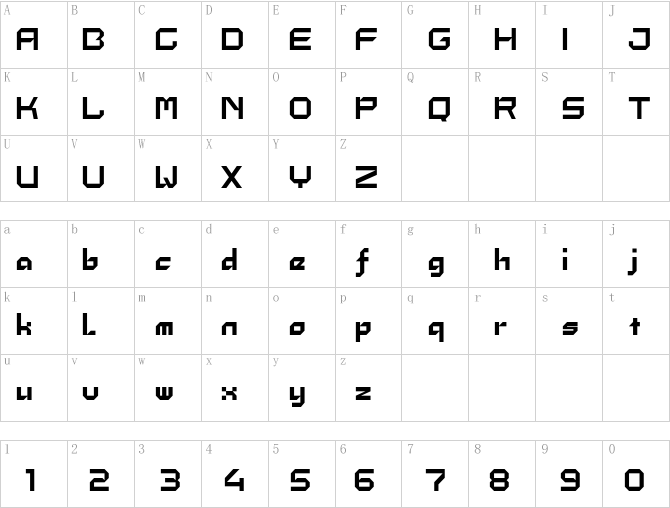
Jam Mono is a free commercially available English font released on May 26, 2020 by webcool designer @DxD_studio. This font has a straight and sharp style, which is especially suitable for masculine, tough and other designs, as well as for logo design.
Jam Mono